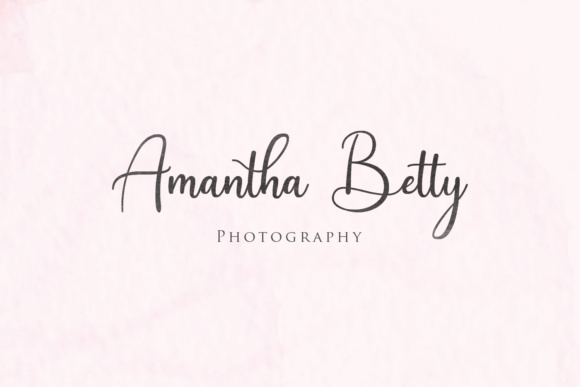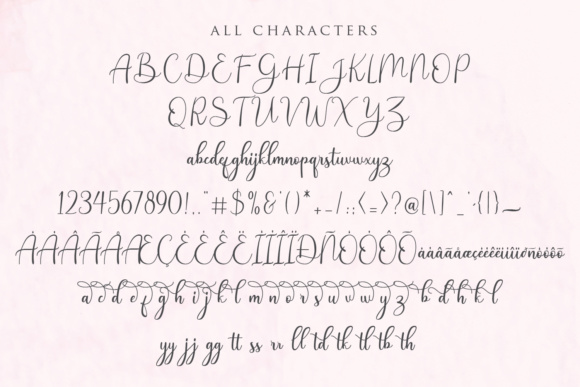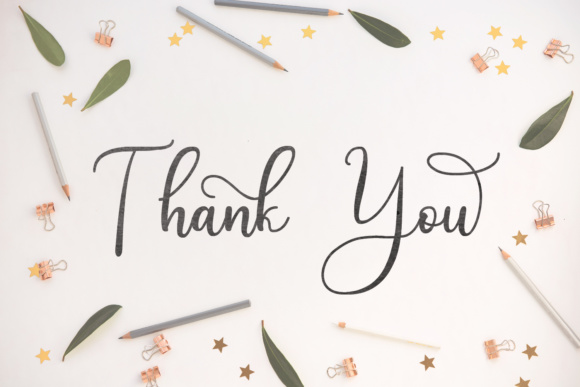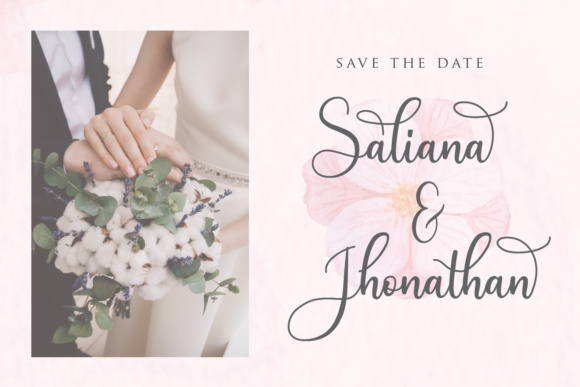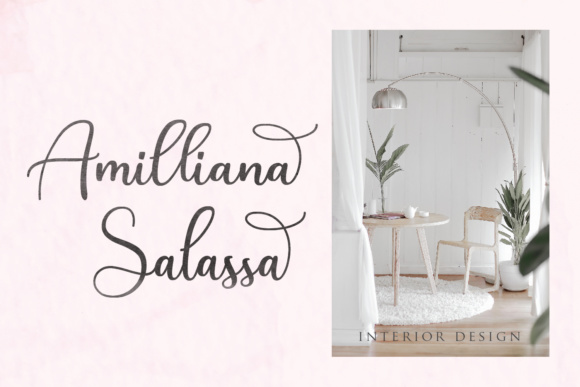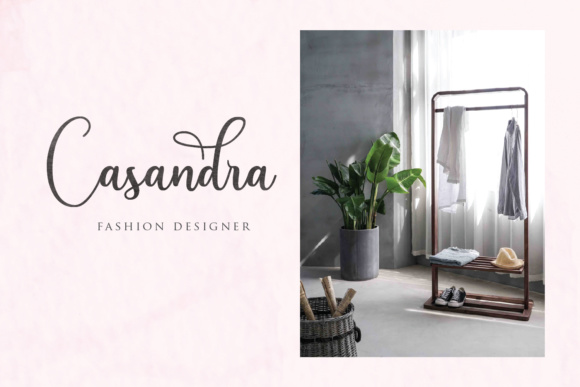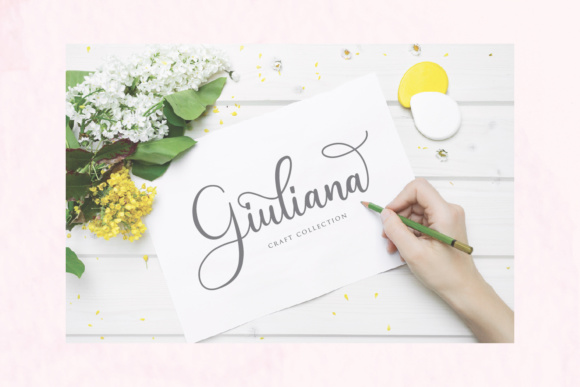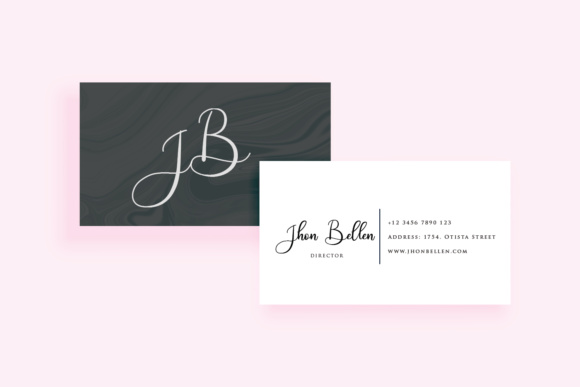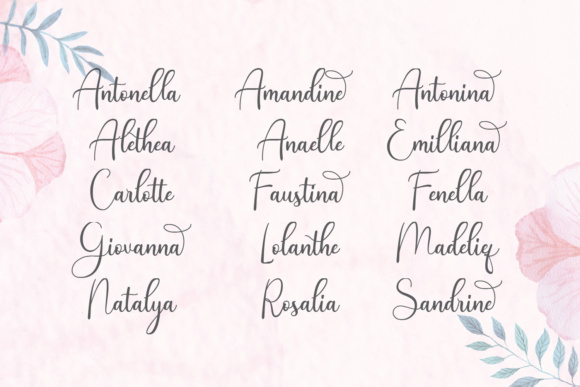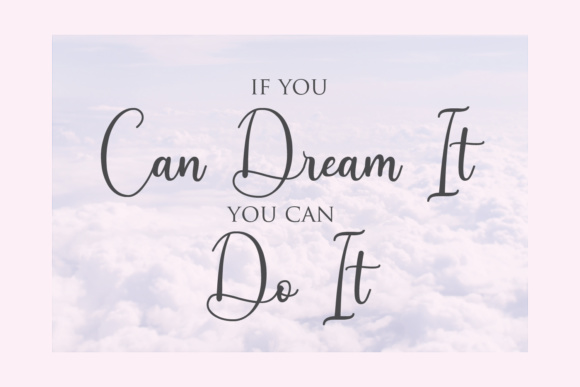
HomeScript FontsAndina Script Font Script Fonts Andina Script Font FacebookXPinterestWhatsApp Andina Script Font Poster 2 Andina Script Font Poster 3 Andina Script Font Poster 4 Andina Script Font Poster 5 Andina Script Font Poster 6 Andina Script Font Poster 7 Andina Script Font Poster 8 Andina Script Font Poster 9 Andina Script Font Poster 10 Andina Script Font Poster 11 Andina Script Font Poster 12 About Andina Script Font The Andina is a modern script font. Its swirly letters will give every design an elegant touch. DOWNLOAD ON CREATIVE FABRICAThis font is sold and delivered by Creative Fabrica. Font Canyon may earn a commission if you buy through this link. People also explored Verao Storylove Font Love Flower Monogram Font Clubing Font Wernardio Font Montpeller Font Surf Up Font Moongarz Simple Handmade Font 295 0 TagsAndina Script Font Previous articleMikaella FontNext articleBright Snowflakes Font LEAVE A REPLY Cancel reply Comment: Please enter your comment! Name:* Please enter your name here Email:* You have entered an incorrect email address! Please enter your email address here Website: Save my name, email, and website in this browser for the next time I comment. Personal Use Free Malinda Personal Use Free Read more about this font Shrag Script Personal Use Free Read more about this font Dear Monita Personal Use Free Read more about this font Nuku Nuku Personal Use Free Read more about this font BLOG Top 10 Handwritten Fonts That Elevate Your Designs Top 10 Handwritten Fonts That Will Elevate Your Designs Handwritten fonts bring a warm, personal touch to every creative project. Whether you're designing logos, invitations,... Elegant Wedding Invitation Fonts – Handwritten & Script Fonts Free vs Paid Fonts: Why Investing in Premium Fonts Is Worth It To increase your work productivity, choose the most readable fonts.